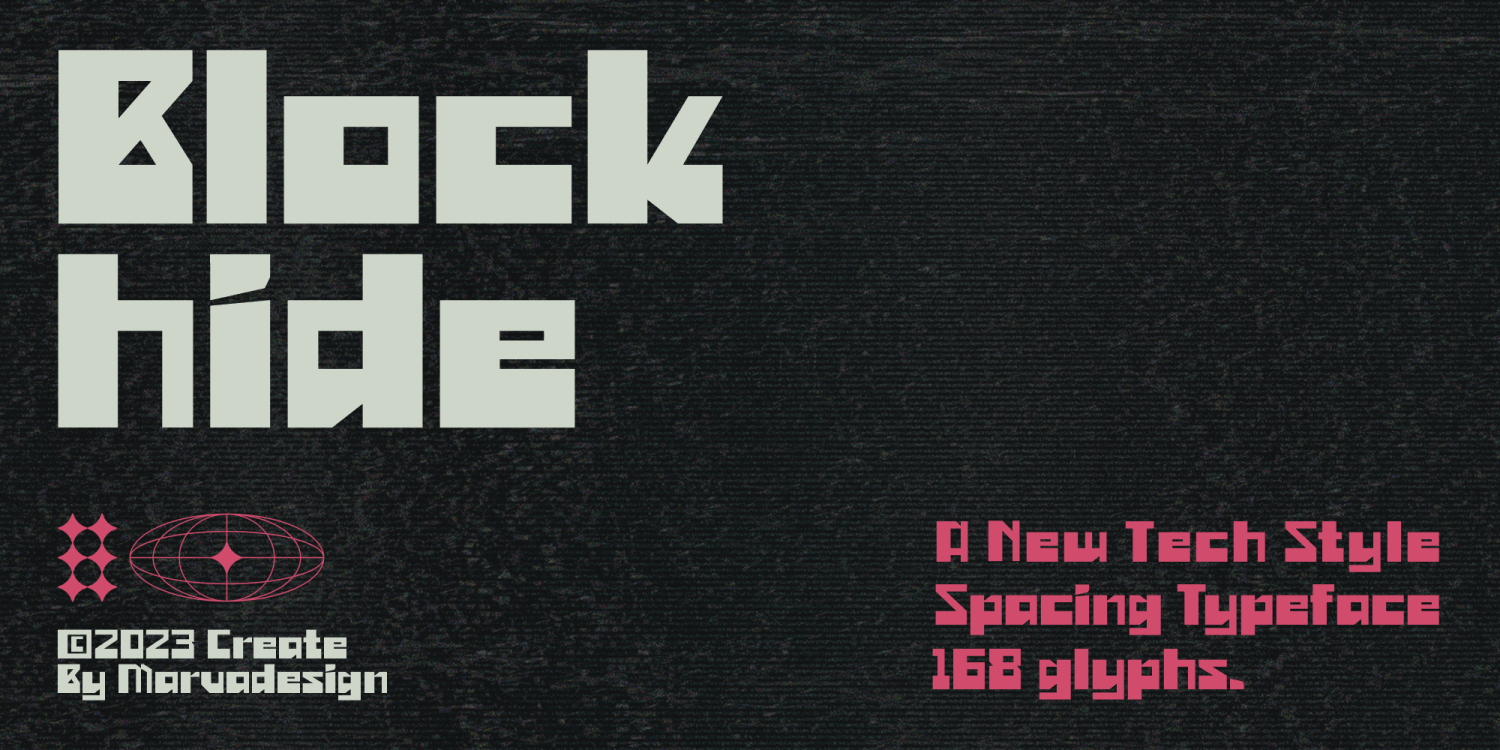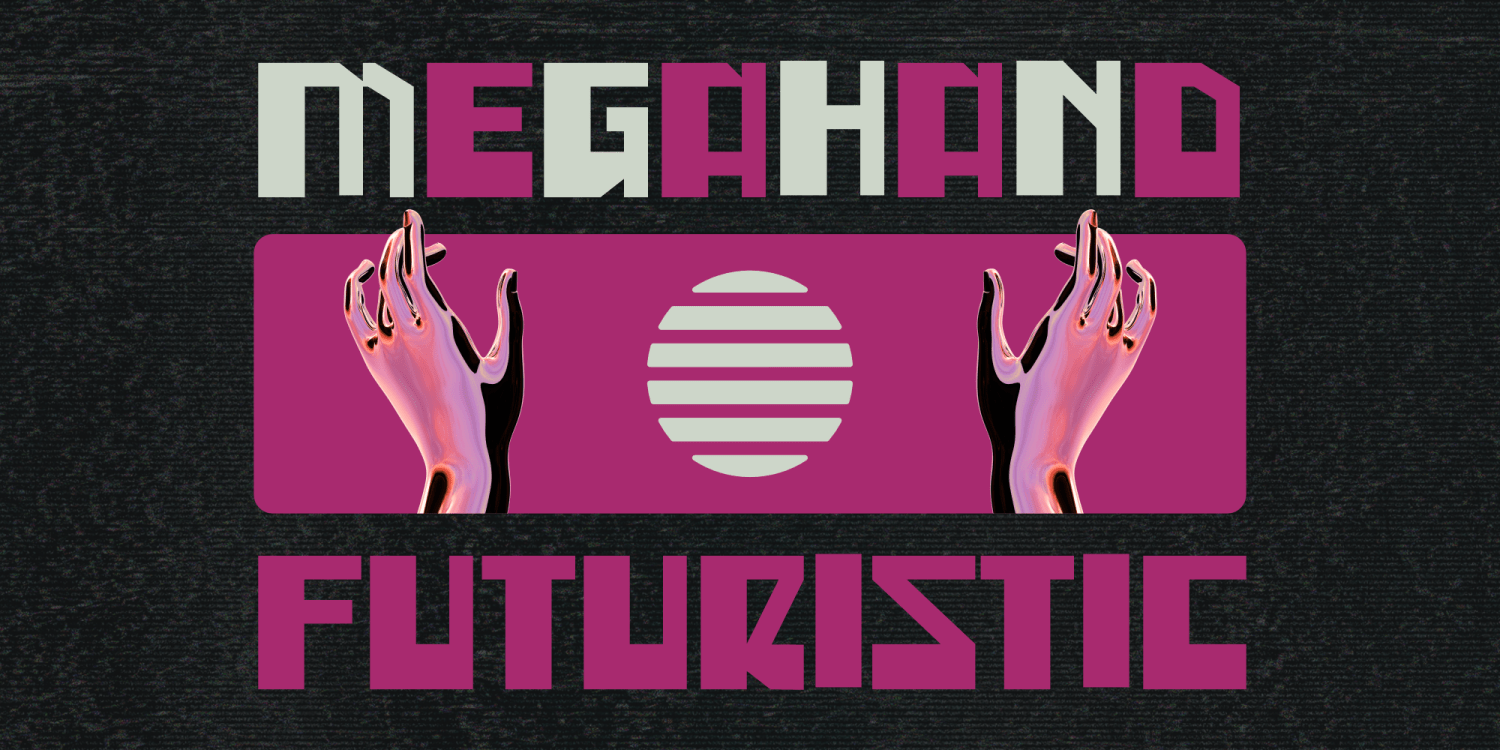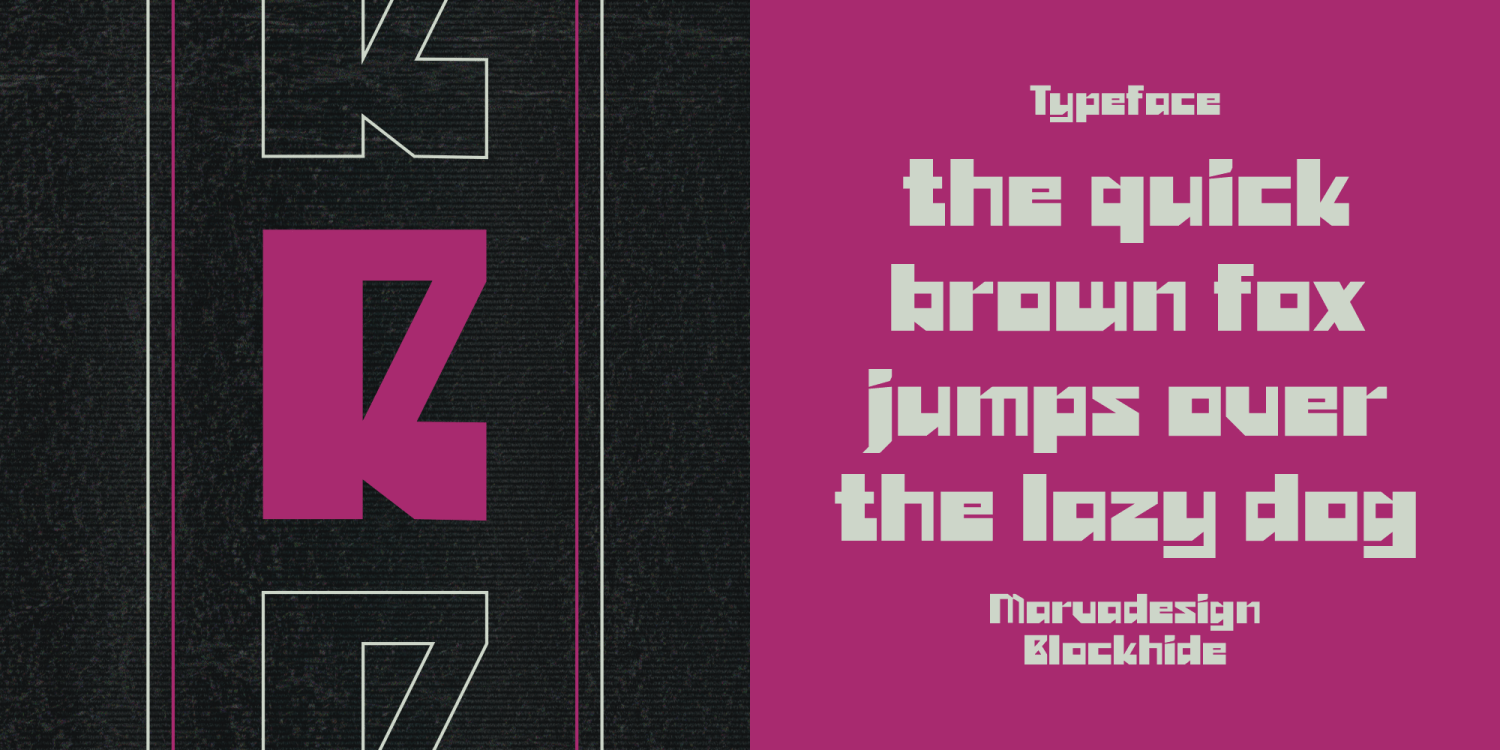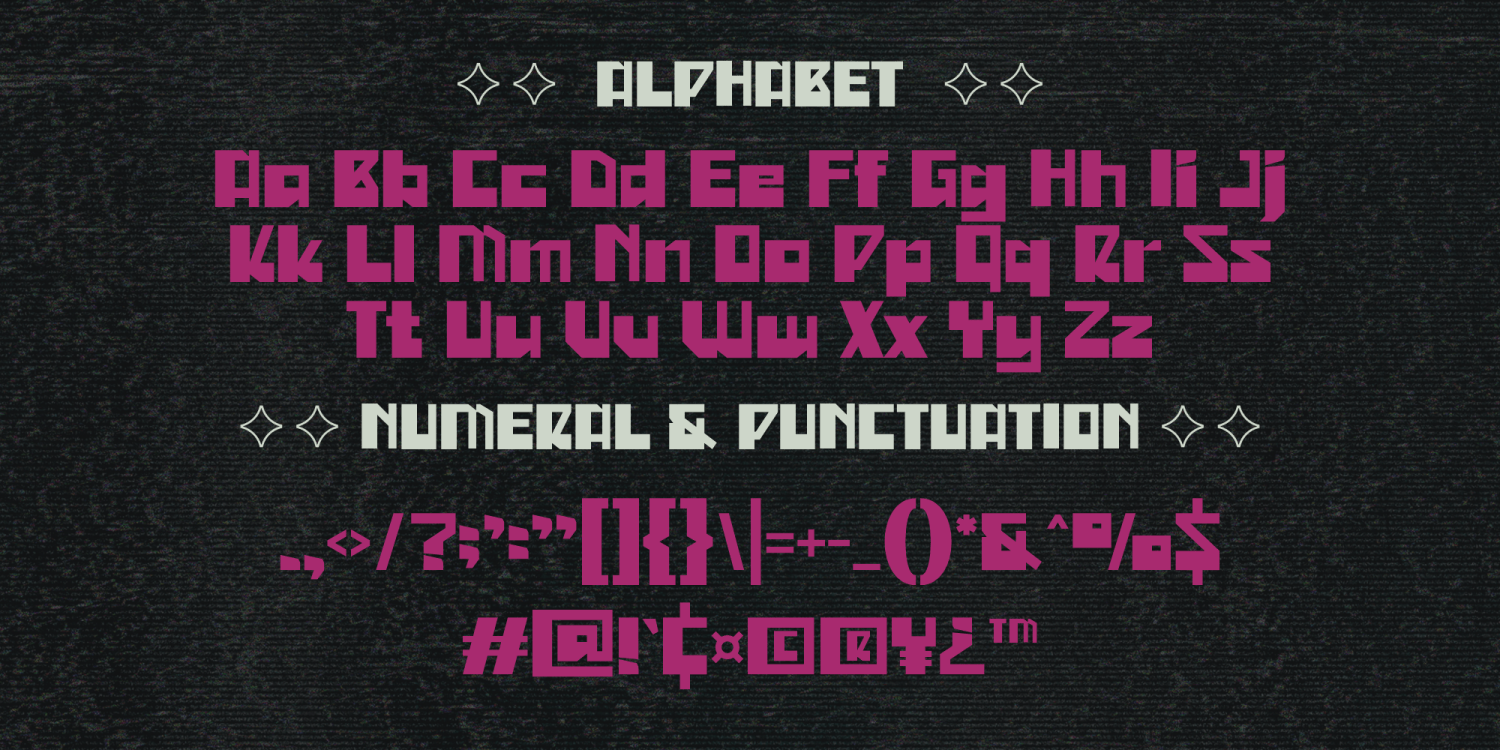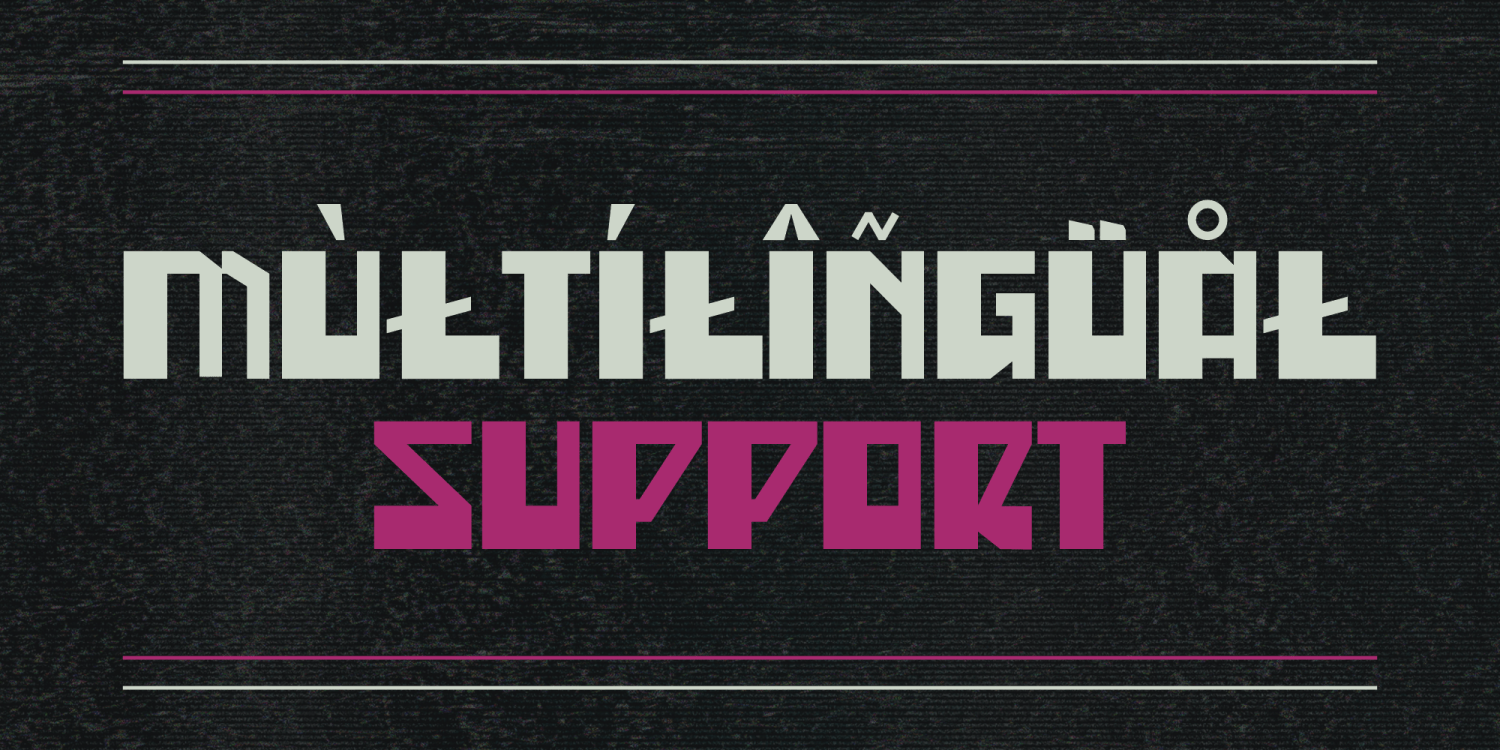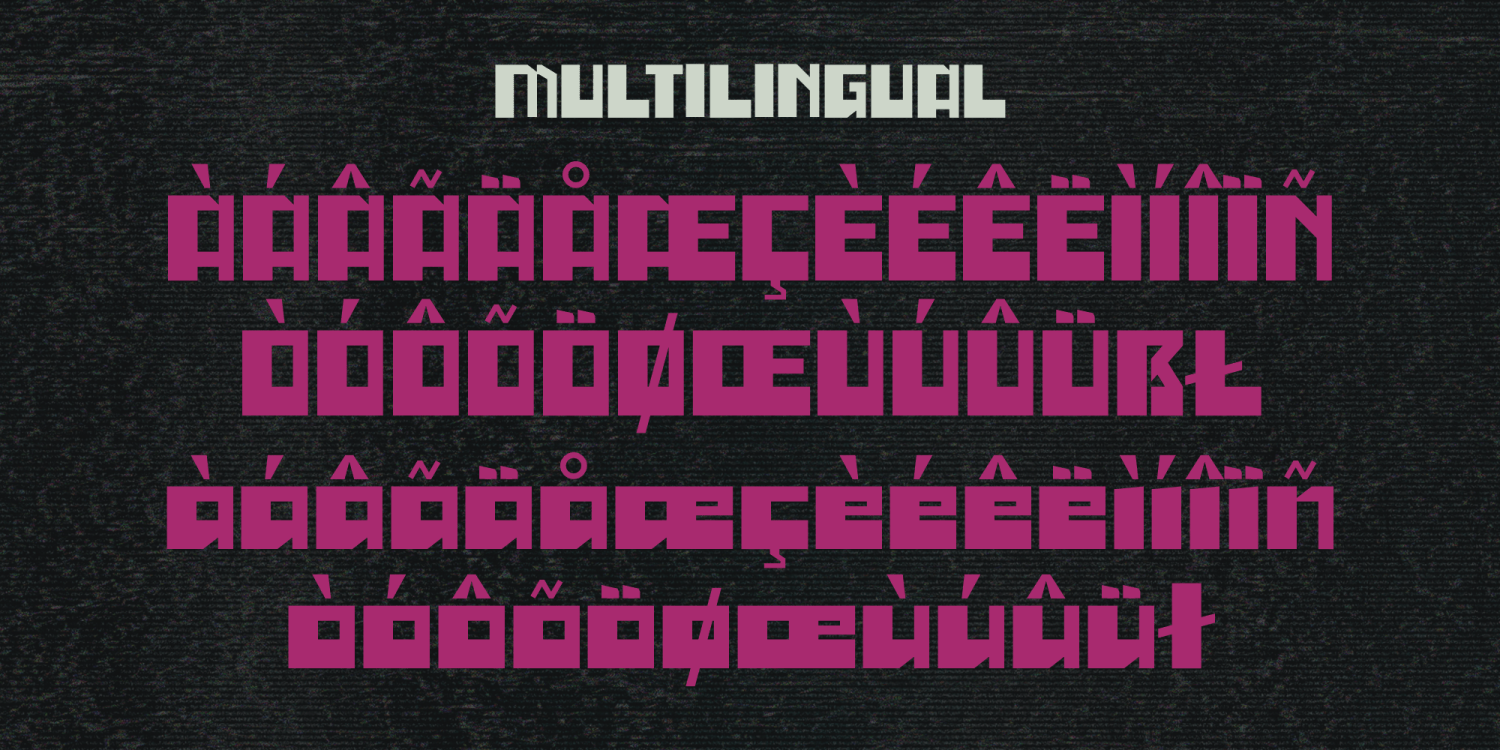
Blockhide
Font Family by Marvadesign
Introducing Blockhide is a meticulously crafted typeface that embodies a bold, futuristic aesthetic with a geometric and modular structure. Characterized by sharp angles and a block-like appearance, this typeface conveys a strong technological and industrial essence, making it particularly well-suited for sci-fi, cyberpunk, and technology-oriented designs. The consistent spacing and structured form ensure both readability and a striking visual presence. With a total of 168 glyphs, Blockhide offers extensive typographic versatility, making it an excellent choice for branding, posters, gaming interfaces, and contemporary graphic design applications.